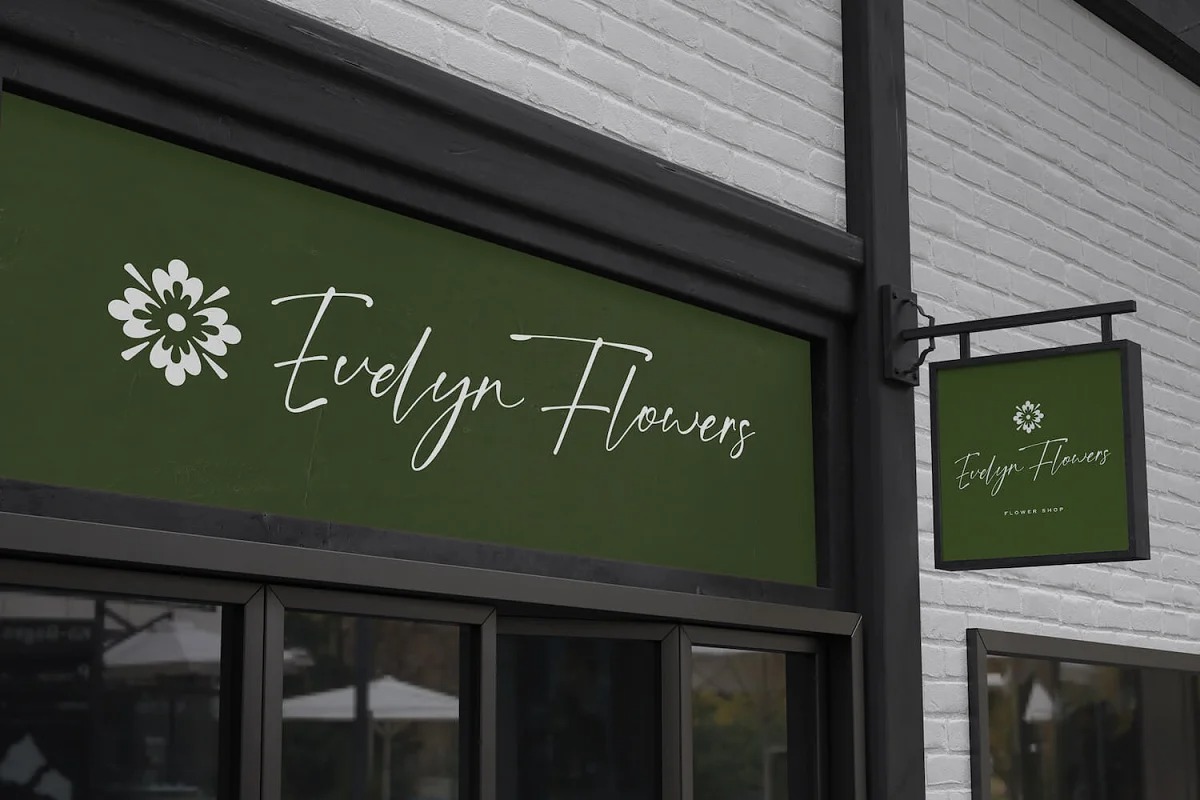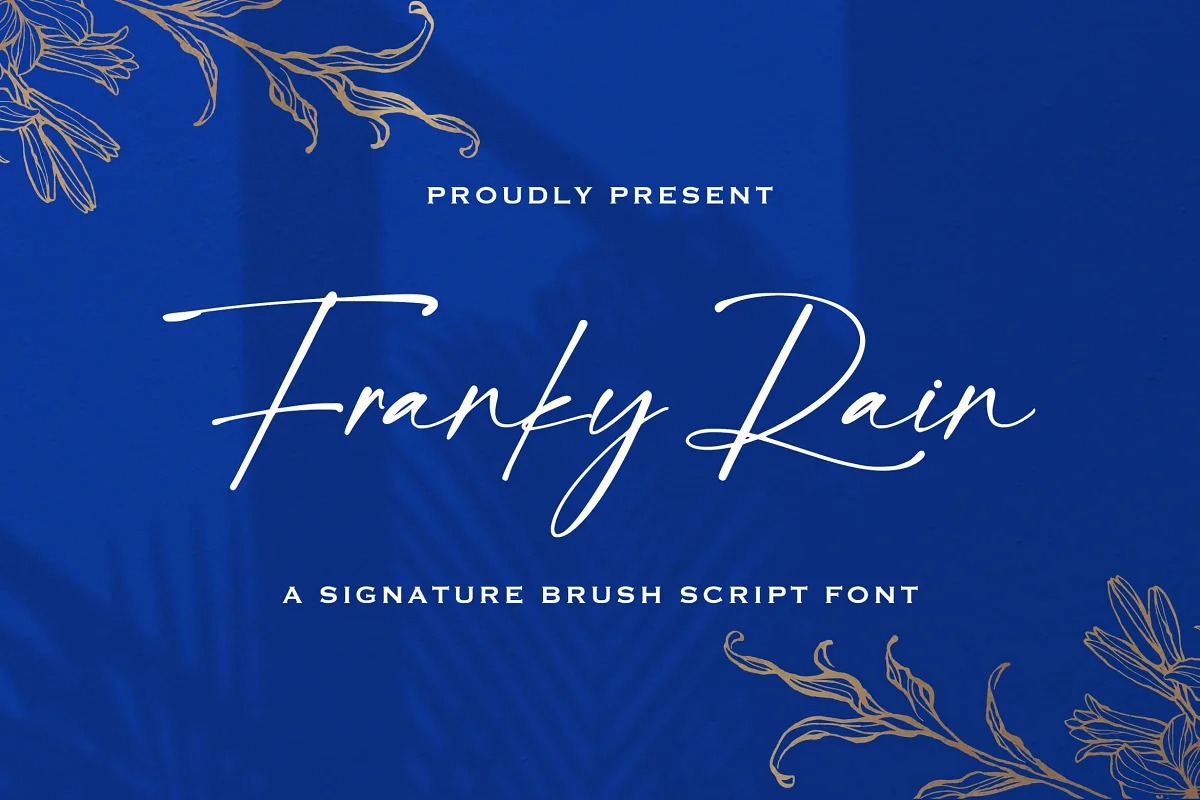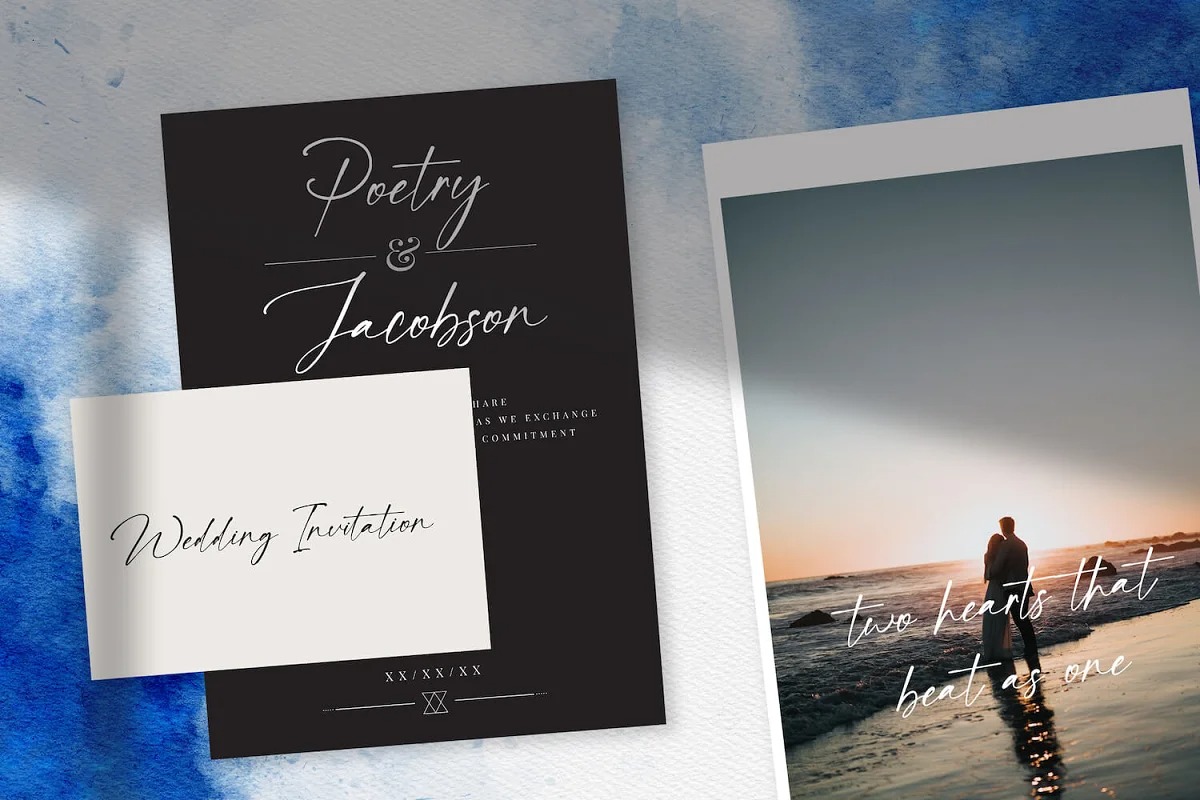
Franky Rain Font is elegant handwrittem typeface manufactured by StringLabs. With a classy and natural handwritten style, it makes your project beautiful and professional. It has beautiful and well balanced characters and as a result, it matches a wide pool of designs. Add it to your most creative ideas and notice how it makes them come alive!